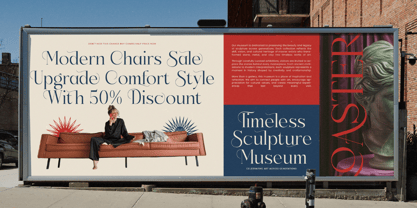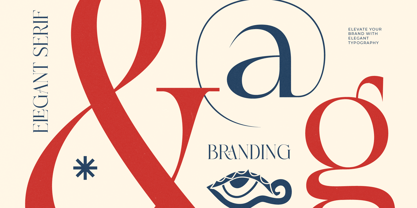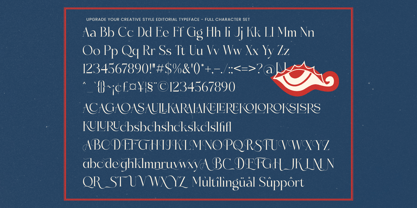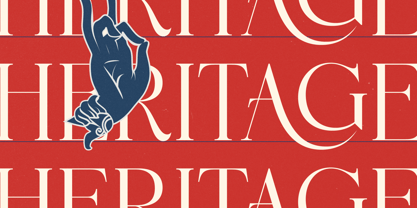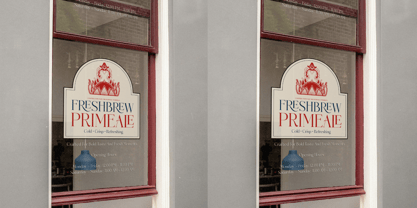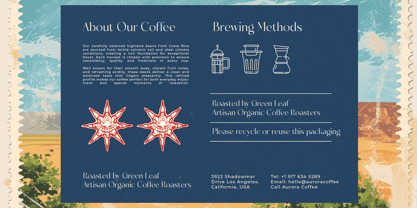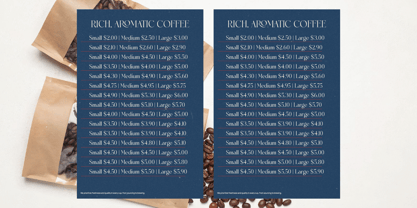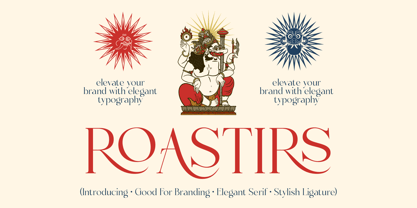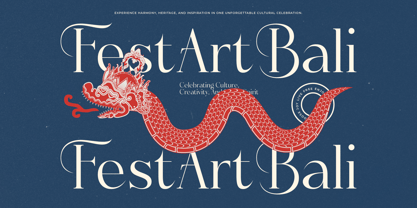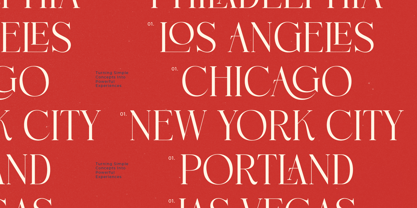
Roastirs
by Timelesstype Studio
The Roastirs Font Family was designed by Heru Utama Putra and published by Timelesstype Studio. Roastirs contains 2 styles and family package options. More about this family
Roastirs is a refined elegant serif typeface crafted for sophisticated branding and high-end visual identity. Inspired by classical proportions and subtle decorative curves, this font blends timeless serif structure with modern luxury appeal. Its stylish ligatures and graceful letterforms create a distinctive rhythm that enhances logos, fashion labels, editorial headlines, perfume packaging, boutique branding, and premium marketing materials. Roastirs delivers confident elegance with balanced contrast, smooth curves, and sharp detailing, making it an excellent choice for designers who want to elevate their brand presence with typography that feels both classic and contemporary.